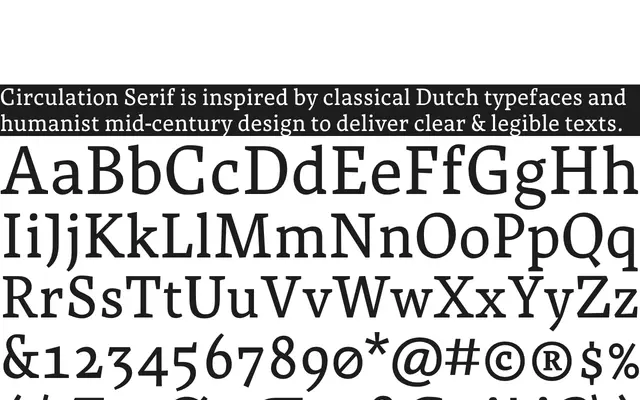
Circulation Serif
A single-weight humanist serif drawing on Dutch classical text faces, designed for long-form reading at small sizes with strong editorial range at display scales.
Built around open apertures, a high x-height and calligraphic detail inherited from the Dutch text tradition, it performs reliably at small sizes from 6pt to 12pt and scales comfortably into headline use. The glyph set of 481 characters covers 200+ Latin-script languages and includes tabular oldstyle figures, fractions, discretionary ligatures and case-responsive diacritics. It received a Communication Arts Award of Excellence in Type Design in 2022.
Inspired by classical Dutch text typefaces and humanist mid-century design, with calligraphic details and high x-height typical of the humanist serif tradition.